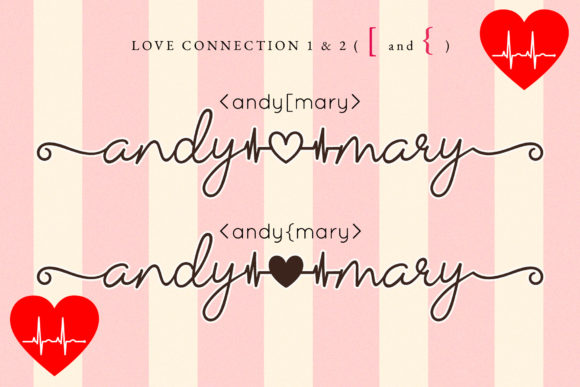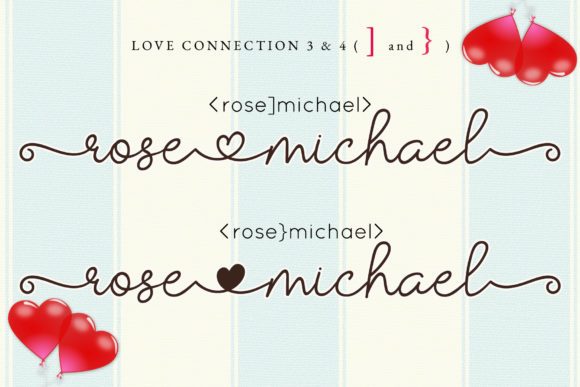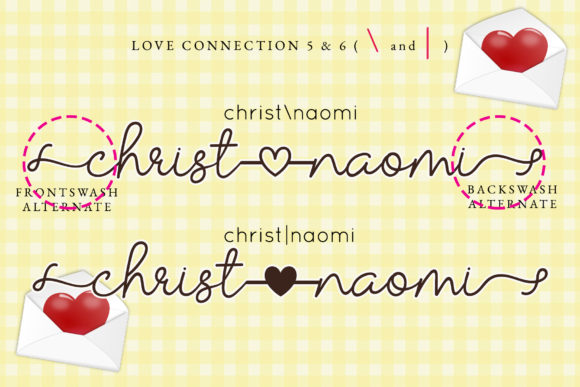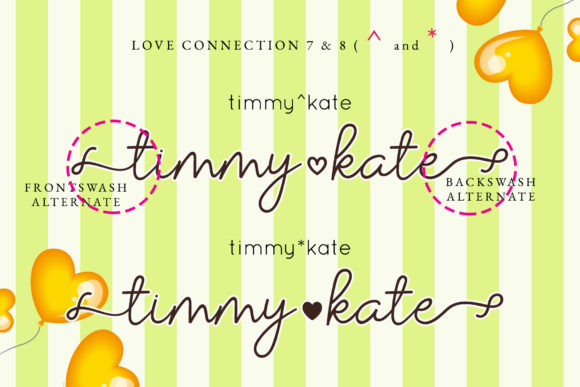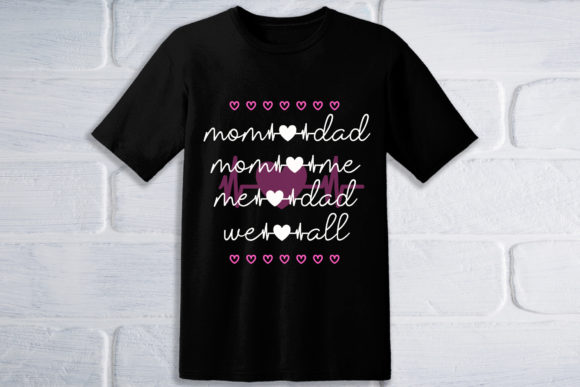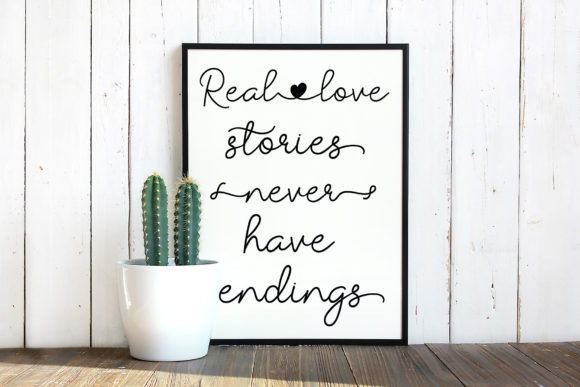
Introducing Dear Daisy Font: A Charming and Elegant Handwritten Delight
Are you on the hunt for a font that exudes charm and elegance? Look no further than Dear Daisy Font, a beautiful handwritten font that’s perfect for a variety of creative projects. Whether you’re a designer, crafter, or DIY enthusiast, Dear Daisy is sure to capture your heart with its whimsical and sophisticated appeal.
What Makes Dear Daisy Font So Special?
Dear Daisy Font is a meticulously crafted handwritten font that’s designed to add a touch of personality to your designs. Its elegant and flowing script is perfect for creating logos, branding materials, social media graphics, and crafty DIY projects. The font’s charm lies in its imperfections, which give it a delightfully human feel that’s hard to replicate with more formal fonts.
When it comes to creating a logo or branding materials, you want a font that will help your business stand out from the crowd. Dear Daisy Font is an excellent choice, with its unique and memorable script that’s sure to leave a lasting impression. The font’s elegance and sophistication make it perfect for businesses that want to convey a sense of luxury, high-end quality, or refinement.
Great for Social Media Graphics
In today’s digital age, social media graphics are an essential part of any marketing strategy. Dear Daisy Font is a great choice for creating eye-catching social media graphics that will help your business stand out. The font’s playful and charming nature makes it perfect for creating engaging and shareable content that will resonate with your audience.
Ideal for Crafty DIY Projects
If you’re a crafter or DIY enthusiast, you’ll love Dear Daisy Font for its versatility and charm. The font is perfect for creating a variety of crafty projects, from handmade cards and invitations to scrapbooking and journaling. The font’s whimsical nature makes it a great fit for projects that require a personal touch.
Key Features of Dear Daisy Font
- Handwritten script: Dear Daisy Font features a beautiful handwritten script that’s elegant, flowing, and charming.
- Unique and memorable: The font’s imperfections and unique character make it a great choice for businesses and designers who want to stand out from the crowd.
- Versatile: Dear Daisy Font is perfect for a variety of creative projects, from logos and branding to social media graphics and crafty DIY projects.
- Elegant and sophisticated: The font’s elegance and sophistication make it perfect for businesses that want to convey a sense of luxury, high-end quality, or refinement.
Tips for Using Dear Daisy Font
Here are a few tips for getting the most out of Dear Daisy Font:
- Use it sparingly: Dear Daisy Font is a statement font, so use it sparingly to add emphasis and personality to your designs.
- Pair it with contrasting fonts: Pair Dear Daisy Font with contrasting fonts to create visual interest and add depth to your designs.
- Experiment with colors: Don’t be afraid to experiment with different colors and textures to add an extra layer of personality to your designs.
Dear Daisy Font is a charming and elegant handwritten font that’s perfect for designers, crafters, and DIY enthusiasts. Its unique and memorable script makes it a great choice for logos, branding, social media graphics, and crafty DIY projects. With its elegance, sophistication, and whimsical nature, Dear Daisy Font is sure to capture your heart and inspire your creativity.